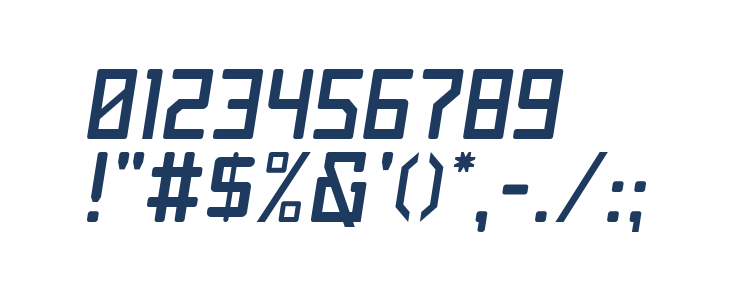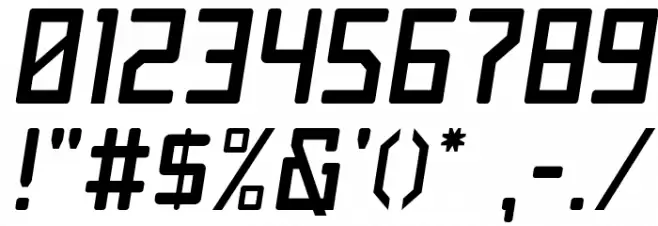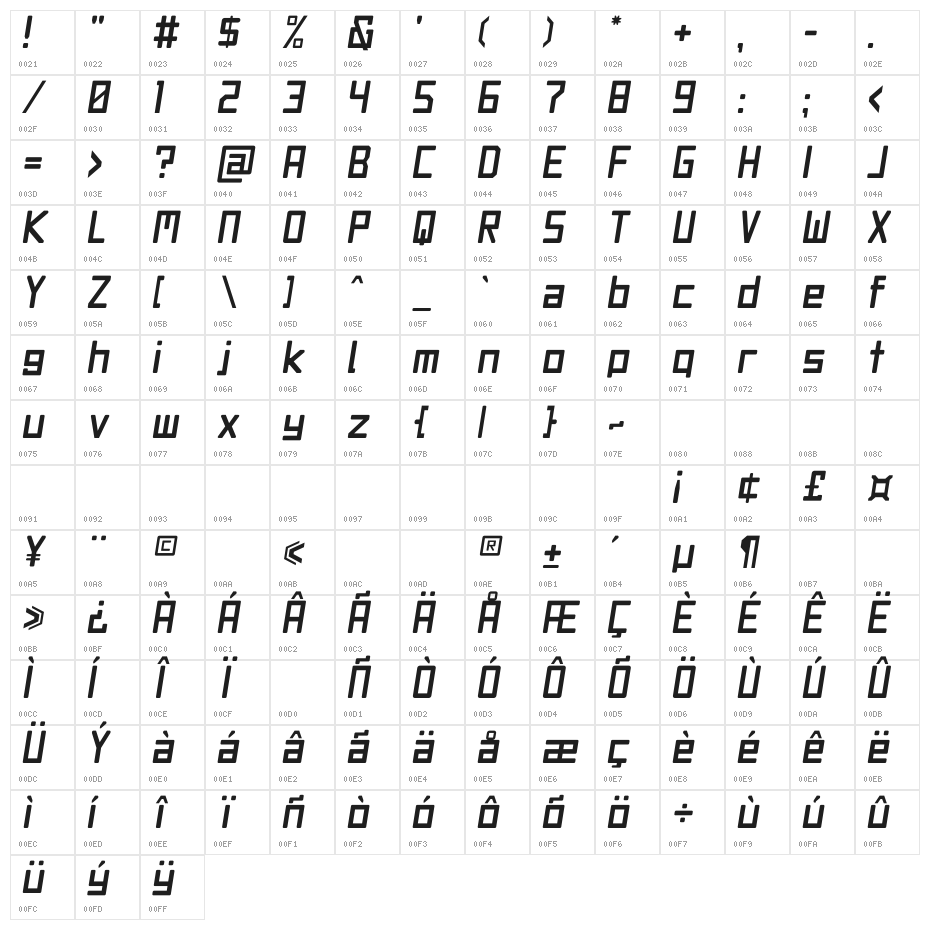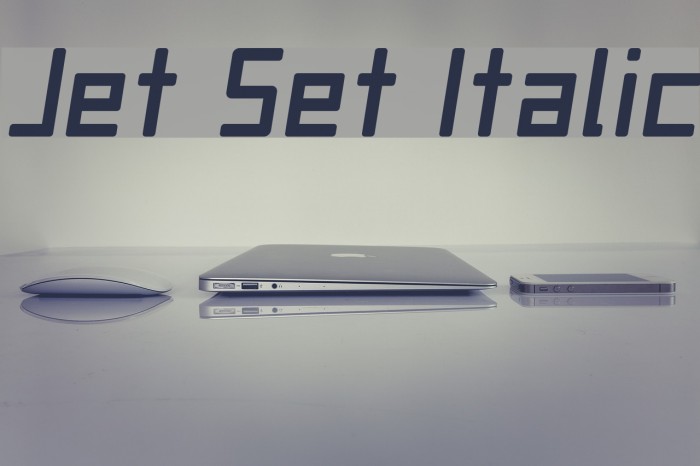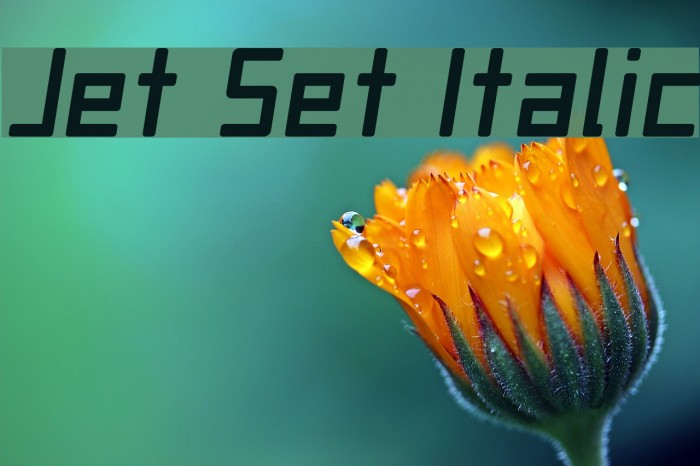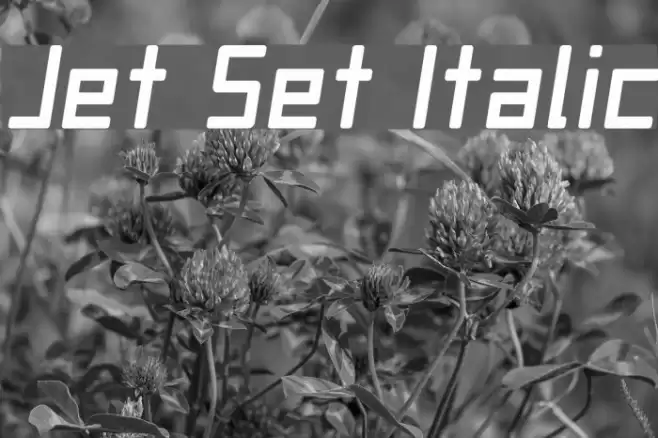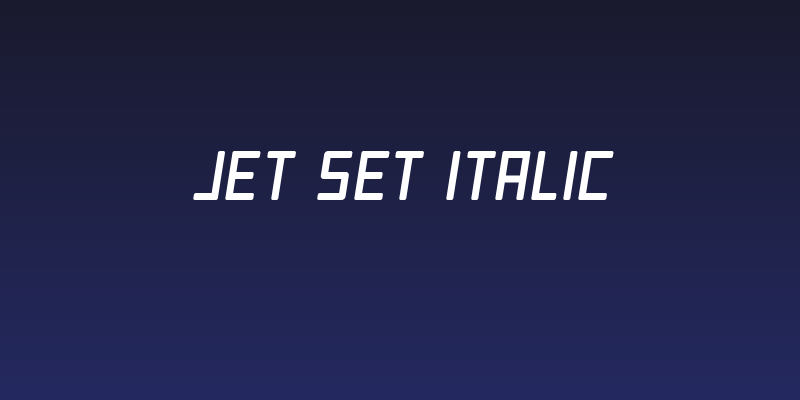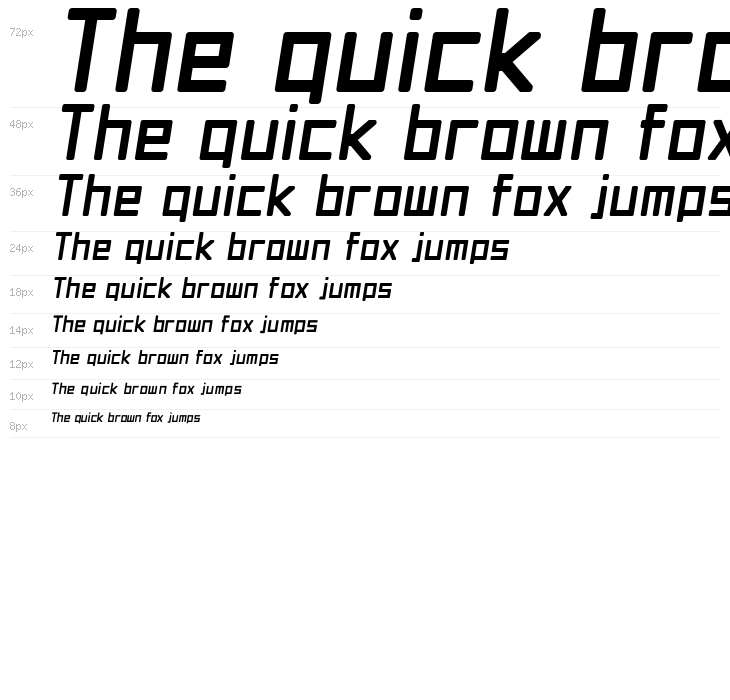
Jet Set Italic Font
Jet Set Italic Description
This font features a modern, angular design with a distinct italic slant, giving it a dynamic and forward-moving appearance. The characters are geometric with sharp edges and a consistent stroke width, creating a sleek and streamlined look. The uppercase and lowercase letters maintain a uniform style, with the lowercase letters mirroring the angularity of the uppercase. Numerals are bold and clear, ensuring readability. Special characters are designed to match the overall aesthetic, with a focus on maintaining the font's cohesive style.
| Proposed Projects | Ideal for futuristic branding, technology-related projects, and dynamic advertising campaigns. |